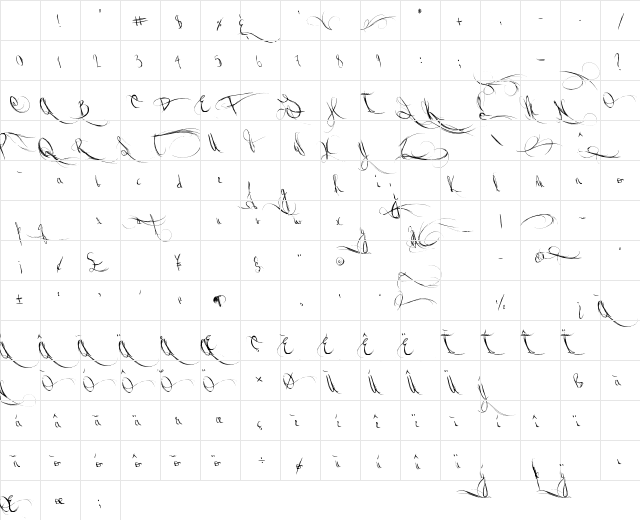
Complete Jellyka Waterways Seafarers Regular glyph index. Displaying only characters natively supported by Jellyka Waterways Seafarers Regular font.
Jellyka Waterways Seafarers is a composed and adaptable typeface that performs quietly and consistently across a wide range of design contexts.